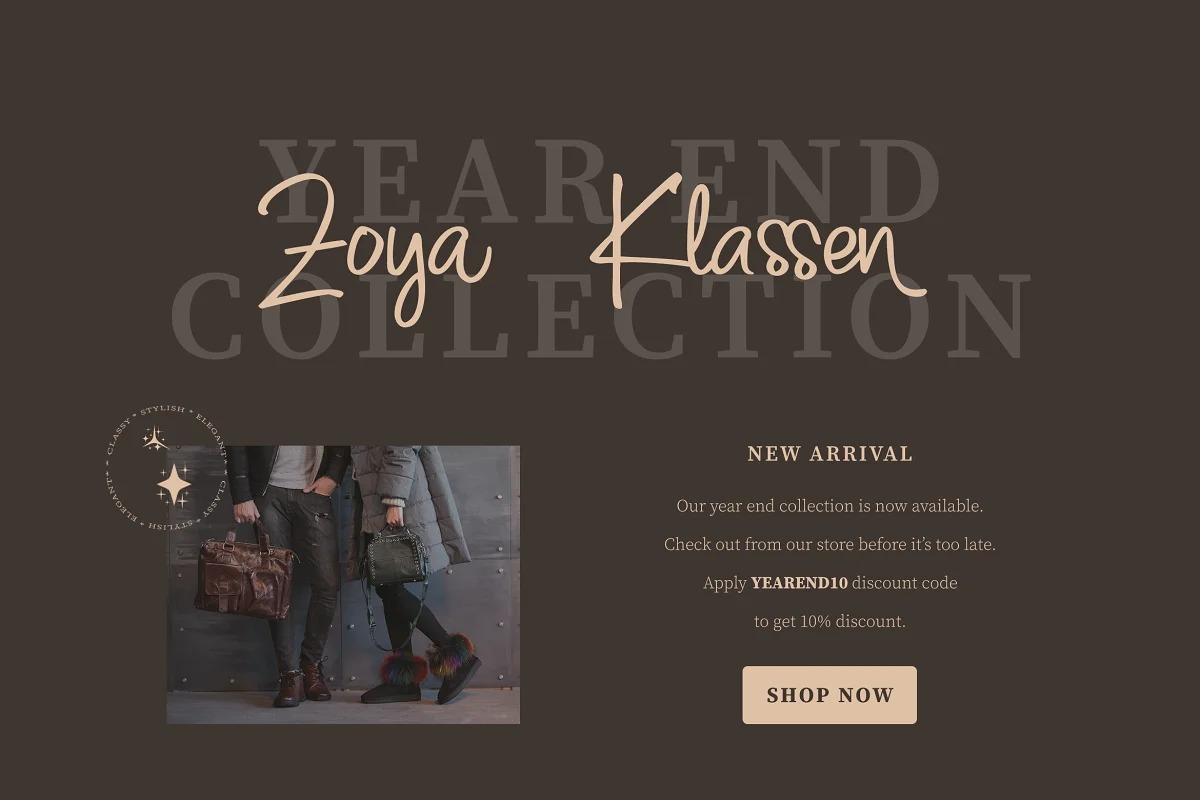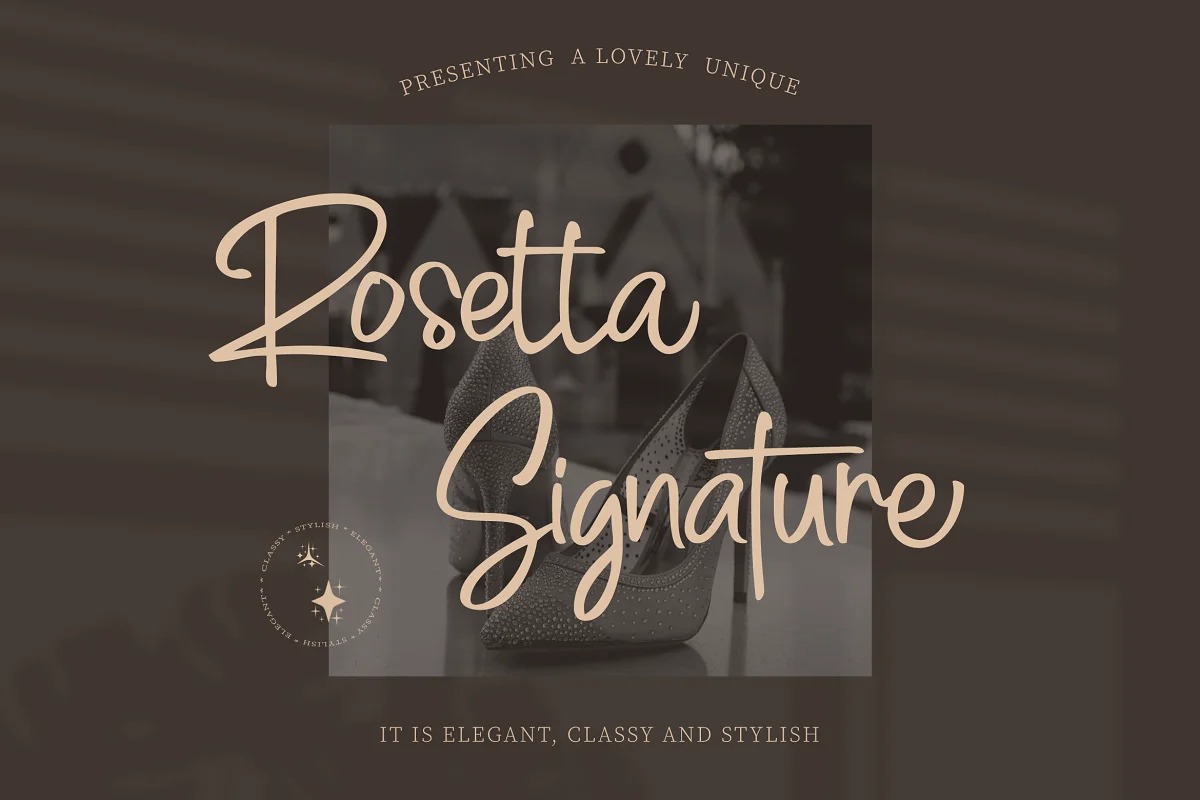
Rosetta Signature Script Font
This is an elegant signature font manufactured by Tigadestd Type. Every swash, stroke, and curve was created to entice happiness and elegance.
Rosetta Signature Script is perfect for branding projects, logo, wedding designs, social media posts, advertisements, product packaging, product designs, label, photography, watermark, invitation, stationery and any projects that need handwriting taste.